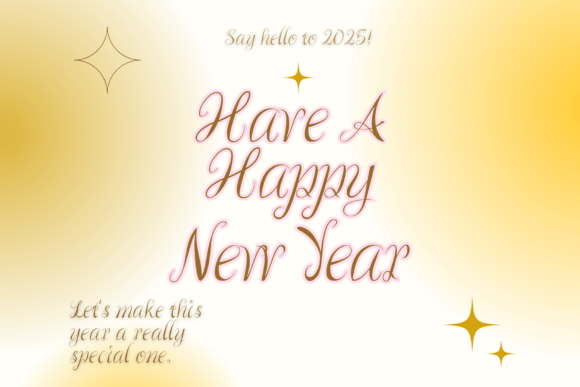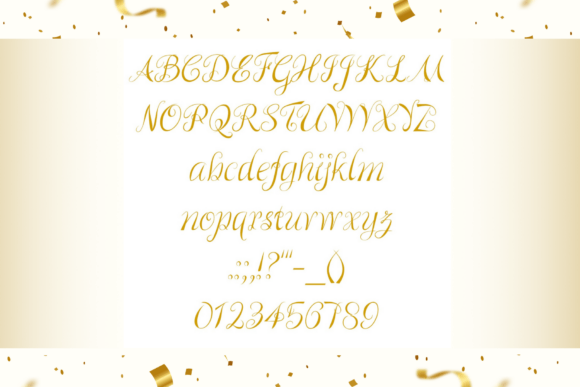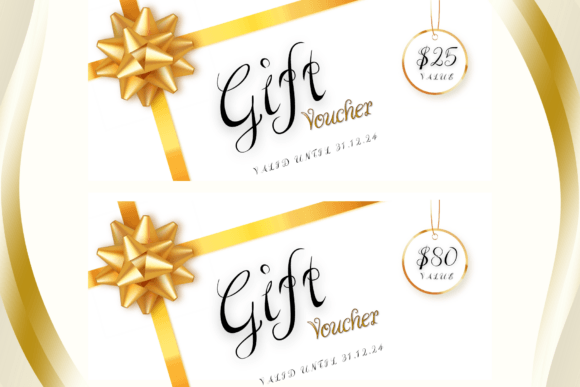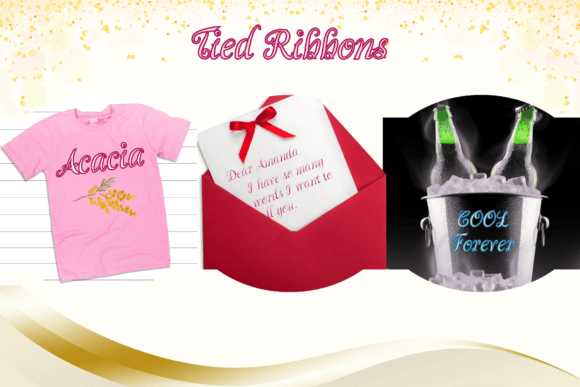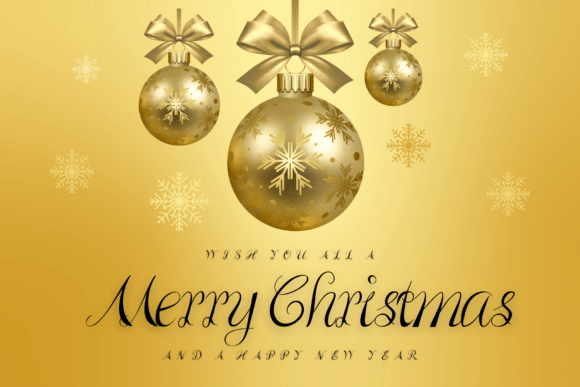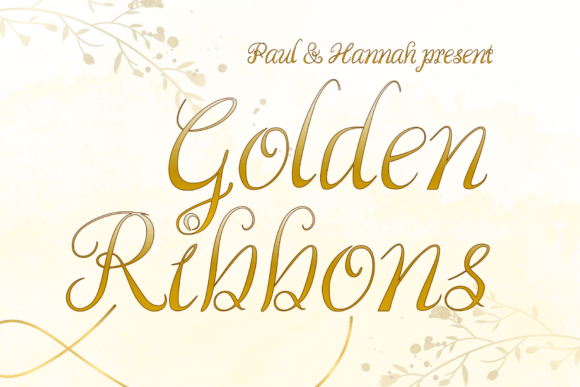
Introducing Golden Ribbons Font: Elevate Your Designs with Elegance
Are you a designer or crafter looking for a font that exudes style and sophistication? Look no further than Golden Ribbons Font, a stunning script font that adds a touch of elegance to any design. With its flowing curves and intricate details, Golden Ribbons is perfect for creating beautiful wedding invitations, thank you cards, quotes, greeting cards, logos, business cards, and more.
The Beauty of Golden Ribbons Font
Golden Ribbons Font is a stylish and incredibly elegant script font that is sure to impress. Its unique and intricate design makes it stand out from other fonts, and its versatility ensures that it can be used in a variety of design projects. Whether you’re creating a romantic wedding invitation or a professional business card, Golden Ribbons Font is the perfect choice.
Wedding designers and event planners, rejoice! Golden Ribbons Font is a dream come true for creating stunning wedding invitations, save-the-date cards, and other event materials. Its elegant and sophisticated design ensures that your clients’ special days will be remembered for years to come. Use Golden Ribbons Font to create beautiful:
- Wedding invitations
- Save-the-date cards
- Thank you cards
- Wedding programs
- Menu cards
Add a Personal Touch to Your Designs
Golden Ribbons Font is not just a font – it’s a way to add a personal touch to your designs. Its handwritten elegance ensures that your designs will stand out from the crowd and leave a lasting impression on your audience. Use Golden Ribbons Font to create:
- Quotes and posters
- Business cards and stationery
Why Choose Golden Ribbons Font?
So, why choose Golden Ribbons Font over other fonts? Here are just a few reasons:
- Elegant and sophisticated design: Golden Ribbons Font is a beautifully designed font that exudes style and sophistication.
- Versatile: Use Golden Ribbons Font in a variety of design projects, from wedding invitations to business cards.
- Handwritten elegance: Golden Ribbons Font has a unique, handwritten feel that adds a personal touch to your designs.
Tips for Using Golden Ribbons Font
Here are a few tips for using Golden Ribbons Font in your designs:
- Pair with a simple font: Pair Golden Ribbons Font with a simple font to create a beautiful contrast.
- Use for headlines and titles: Golden Ribbons Font is perfect for headlines and titles, adding a touch of elegance to your designs.
- Experiment with colors: Golden Ribbons Font looks stunning in a variety of colors, from metallic gold to soft pastels.
Golden Ribbons Font is a stunning script font that is sure to elevate your designs. With its elegant and sophisticated design, versatility, and handwritten elegance, Golden Ribbons Font is perfect for designers and crafters of all levels. Whether you’re creating wedding invitations, business cards, or quotes, Golden Ribbons Font is the perfect choice. So why wait? Download Golden Ribbons Font today and add a touch of elegance to your designs!